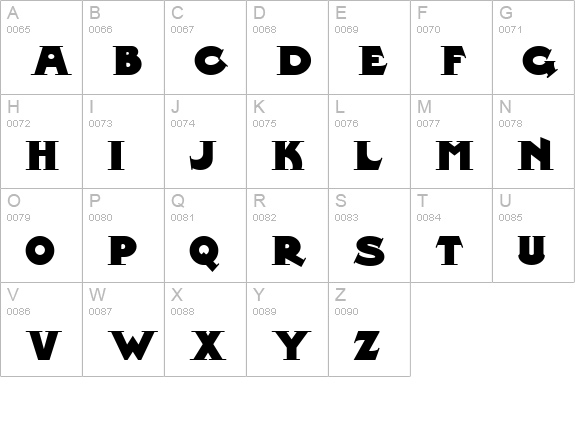
Midland Rail NF Font Details
Midland Rail NF is a striking and versatile font that captures the essence of vintage railway signs and posters. Its bold and distinct letterforms bring a sense of nostalgia and authenticity to any design project. With a perfect balance of industrial charm and modern readability, Midland Rail NF is the ideal choice for creating eye-catching headlines, branding materials, and signage. This unique font is freely available to download at FontsMarket.com, making it easily accessible for designers and creators looking to add a touch of classic elegance to their work. Whether you're designing a retro-inspired poster, a vintage-themed logo, or a stylish website header, Midland Rail NF is sure to make a lasting impression with its timeless appeal and effortless style. Elevate your designs with the timeless charm of Midland Rail NF today!